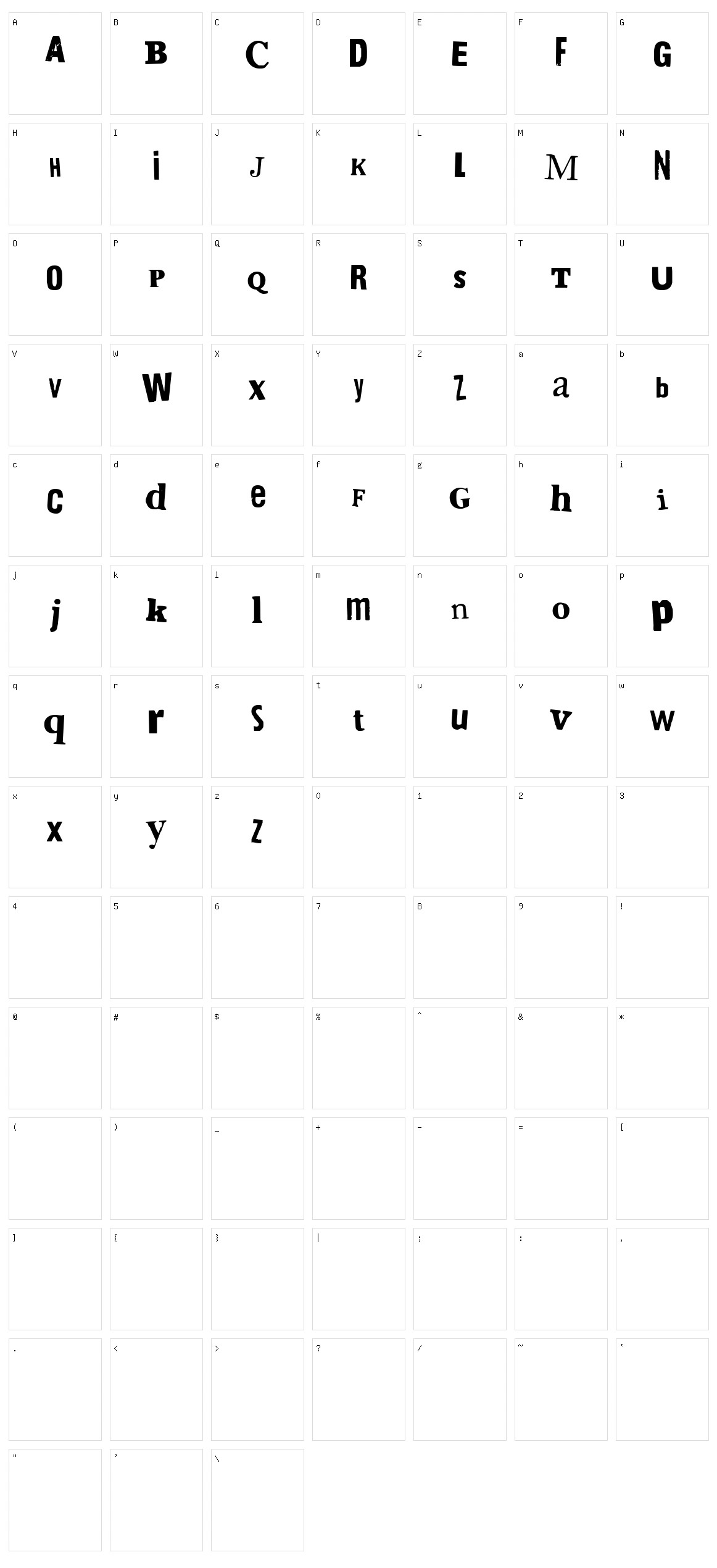
The free font Bring me the gummy bears is carefully designed by 28fonts, showcasing a thoughtful balance of creativity and usability and falls under the Distorted font style. When you download the ZIP file, it contains only 15.64 KB of font files, making it lightweight and quick to download. Please review the license details below to understand permitted usage and distribution rights. If license information is not available, we recommend using this font for personal projects only or contacting the author directly for commercial usage permissions.